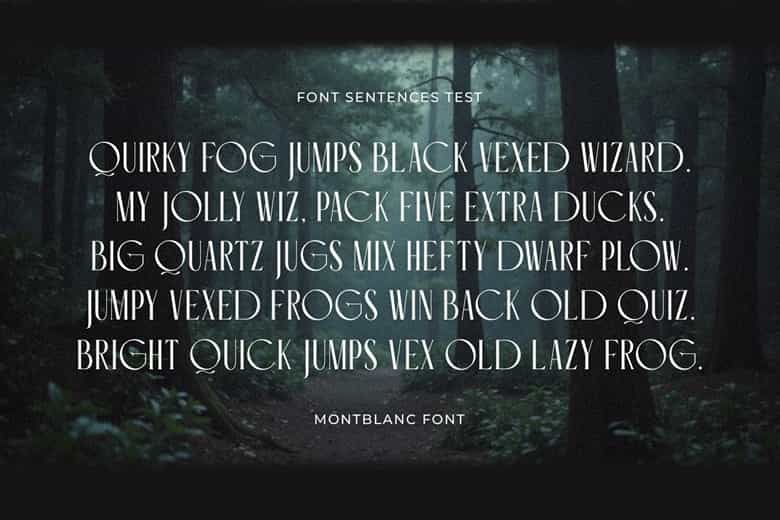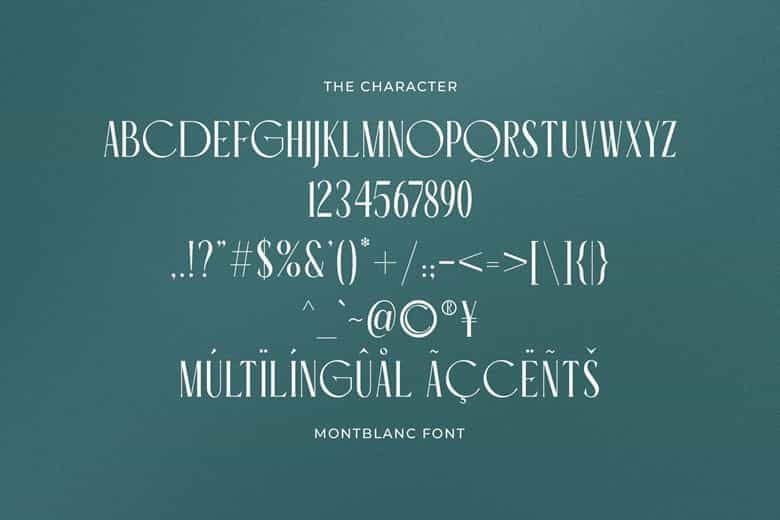
Montblanc is an elegant serif font that looks very classy and sophisticated. Its leggy, elegant typesetting is meant to bring the impression of size and ageless attractiveness. An excellent choice to distinguish the luxury branding, editorial design, and premium projects, Montblanc balances the sharpness and thinness of the line and gets everyone to notice.